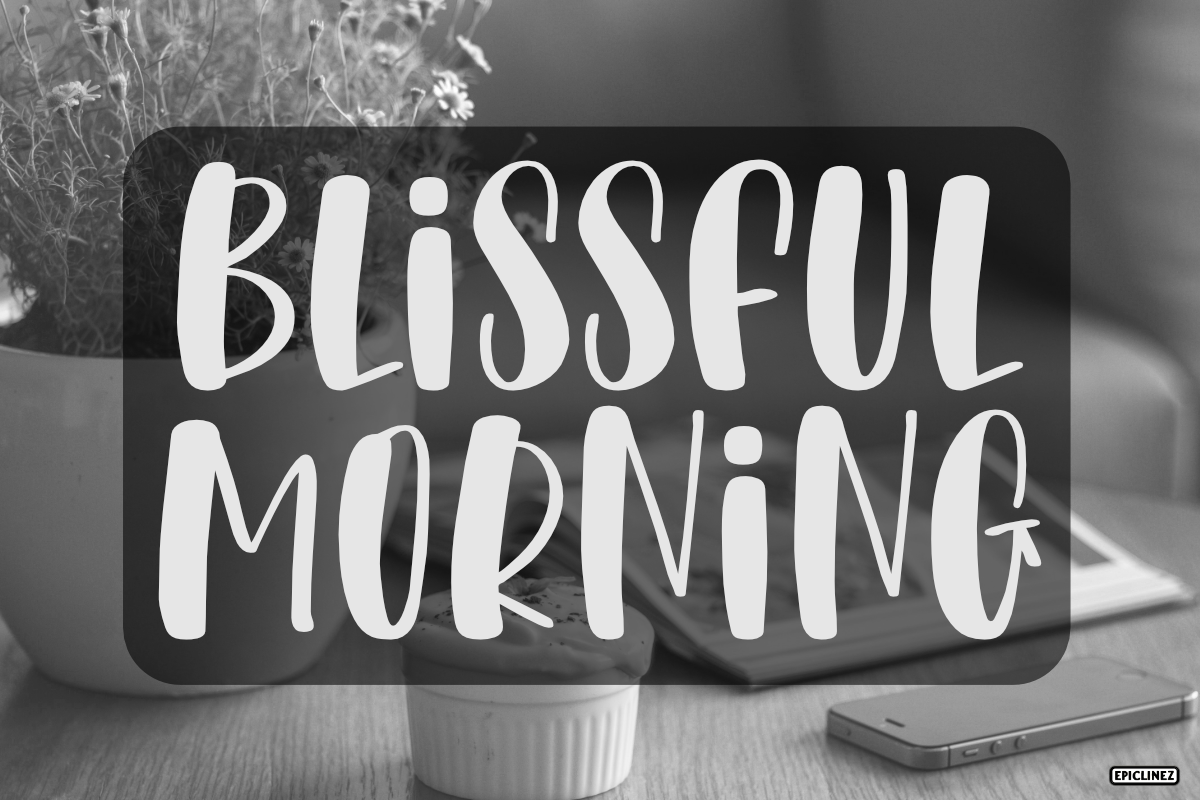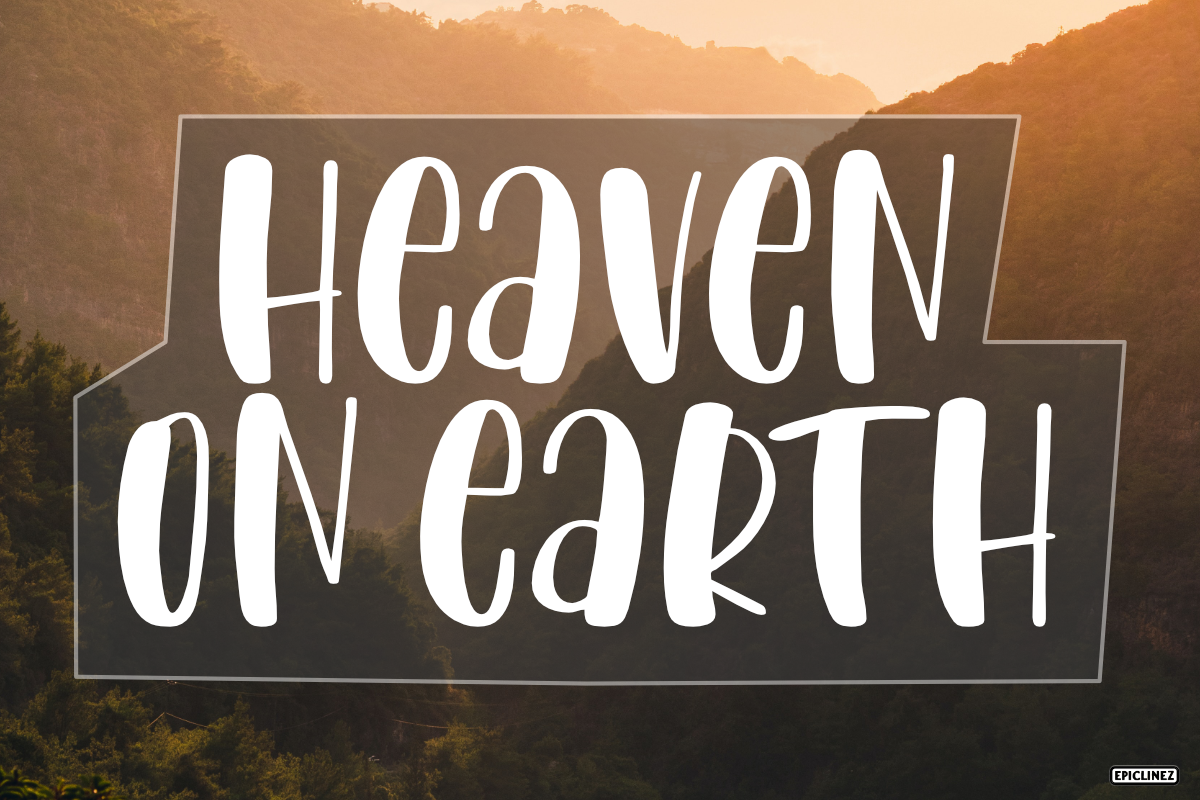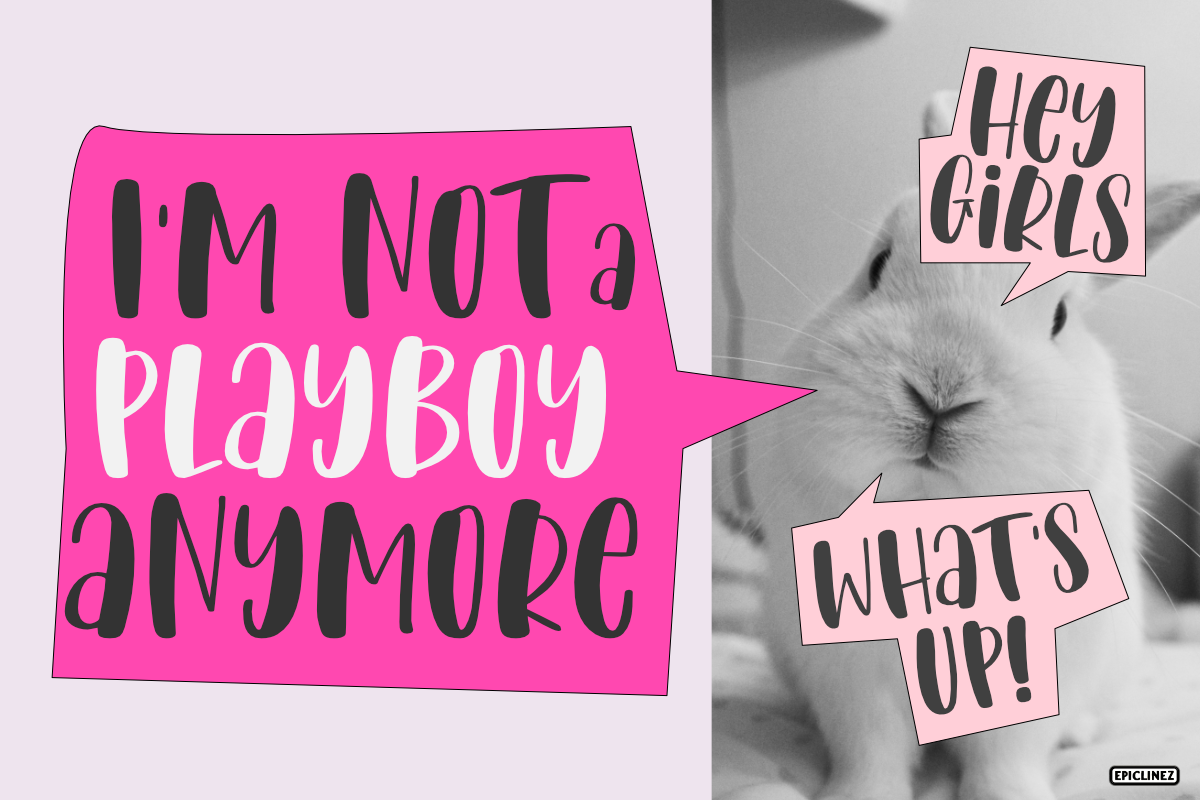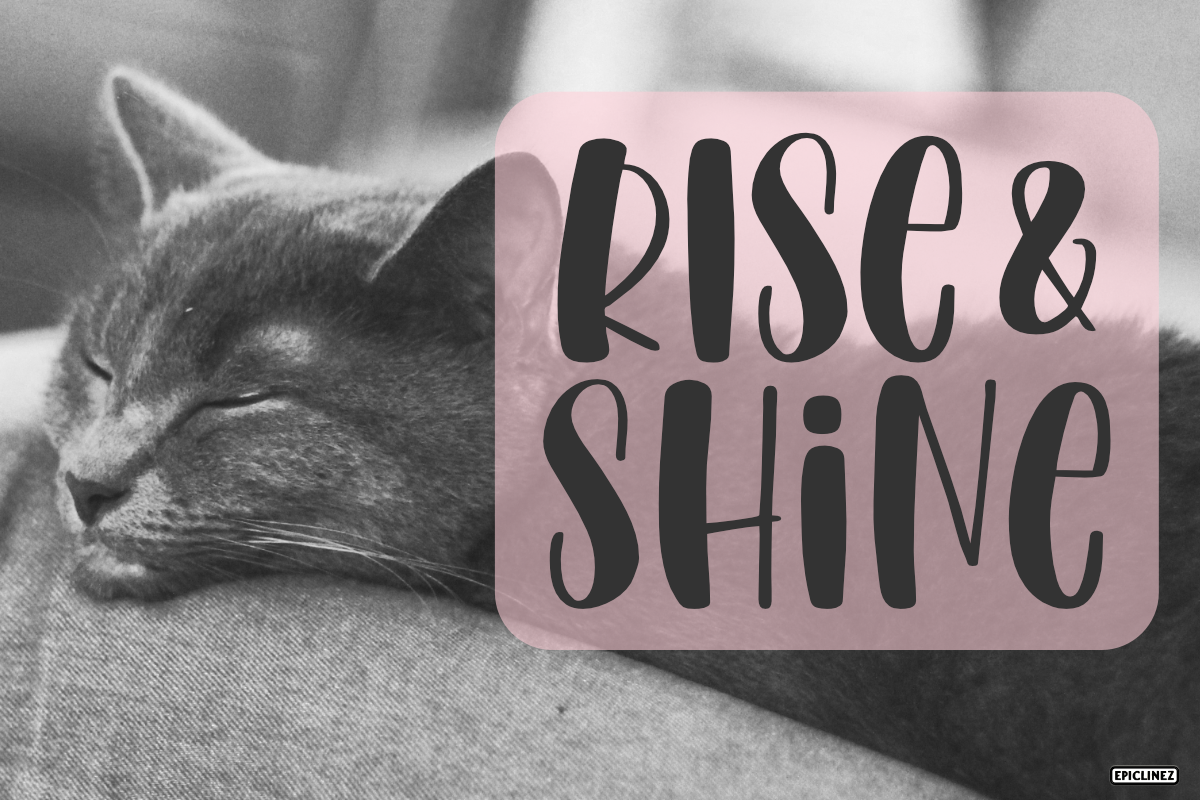
Charming Beauty
Charming Beauty is a fun and charming display font. It’s simple and friendly style makes this design incredibly versatile, fitting a wide variety of creative ideas.